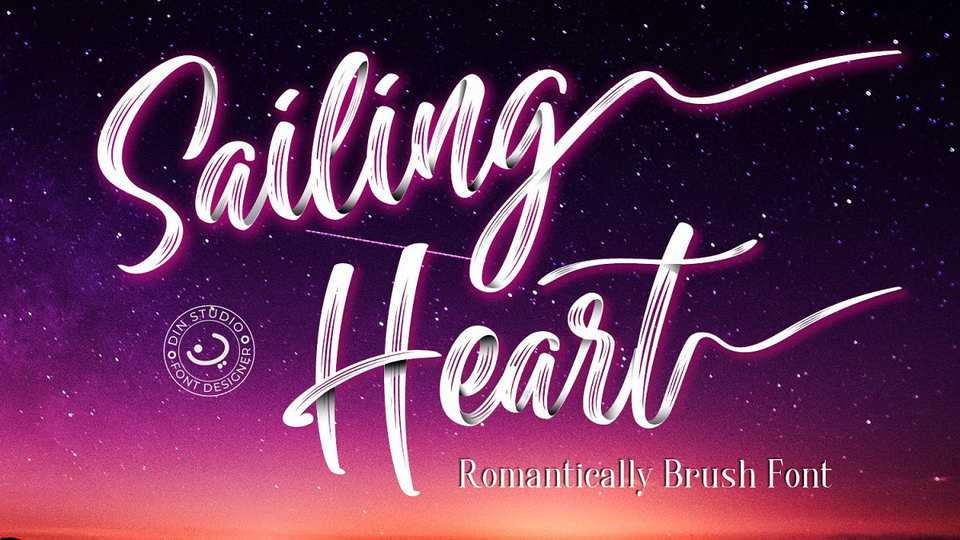
Download Saling Heart font, a stunning hand lettered script made with natural brush to make your design more beautiful and powerful. Great for any design, branding, quotes, wedding invitation, lettering project and etc.